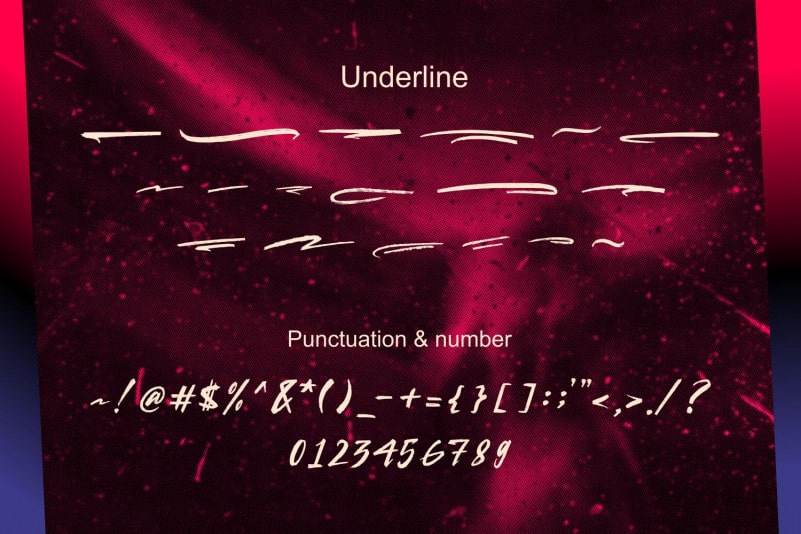
Qunka Brush Font
Qunka Brush Font is a Handwritten Typeface. This font is perfect for product packaging, branding project, megazine, social media, wedding, or just used to express words above the background.